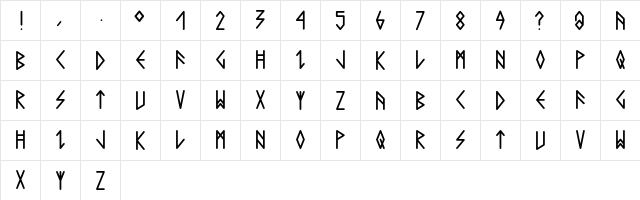
Comic Runes Regular
| Foundry | Adrian Candela |
| Designer | Adrian Candela |
Design Context for Comic Runes Typeface
Comic Runes trades formality for fun, with bouncy, characterful letterforms that bring warmth and energy to any project.
Font Pairing: Pairs well with a rounded or humanist sans for body copy, maintaining the friendly tone without relying on Comic Runes to carry extended reading.
Pro Tip: Avoid using Comic Runes for long passages of text — it works best for headlines, labels, and short calls to action.